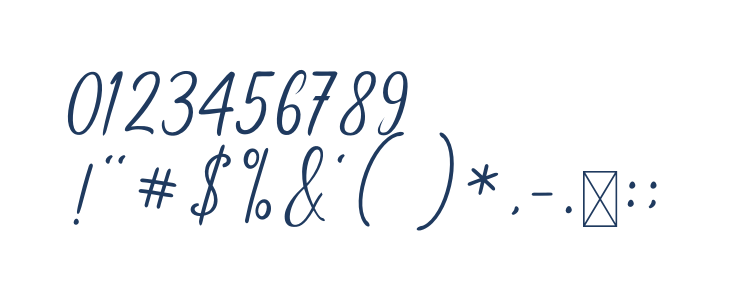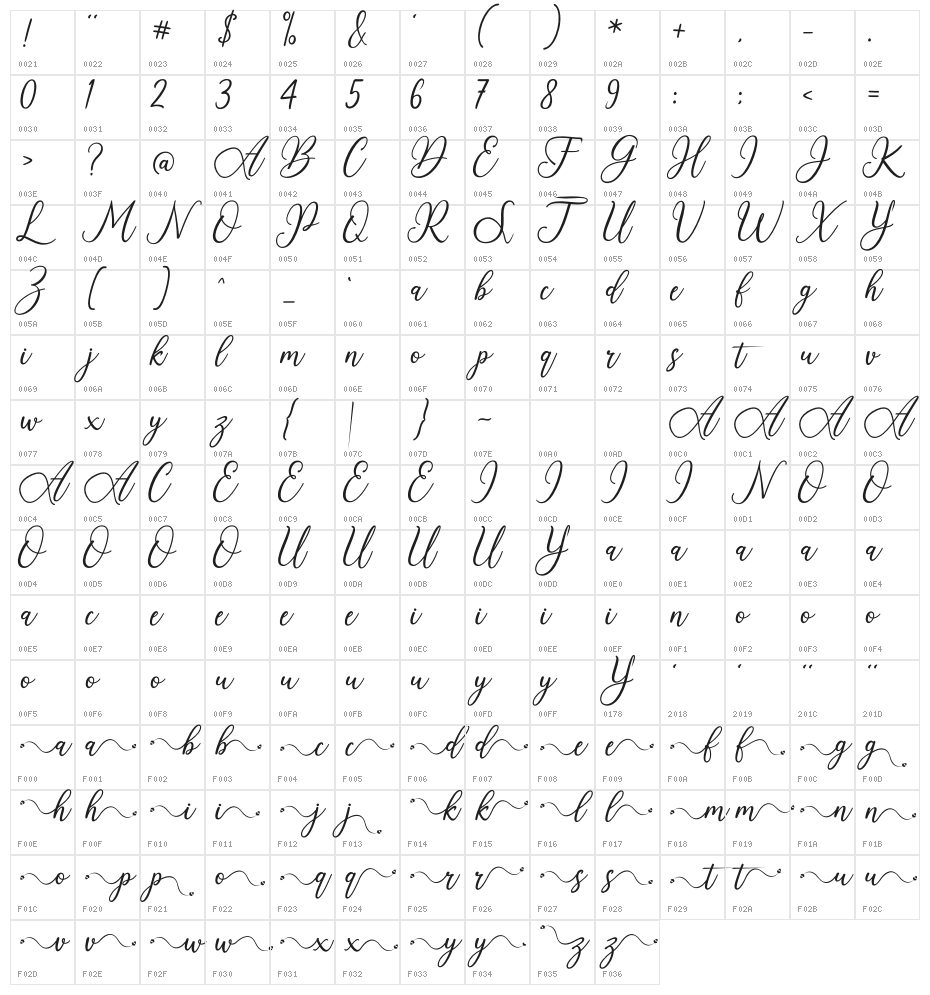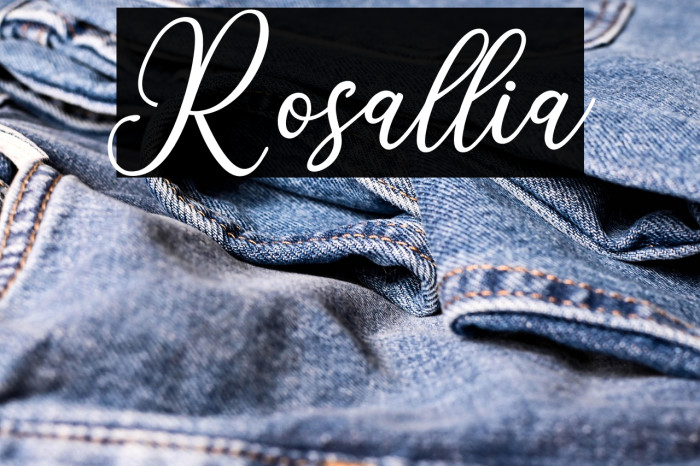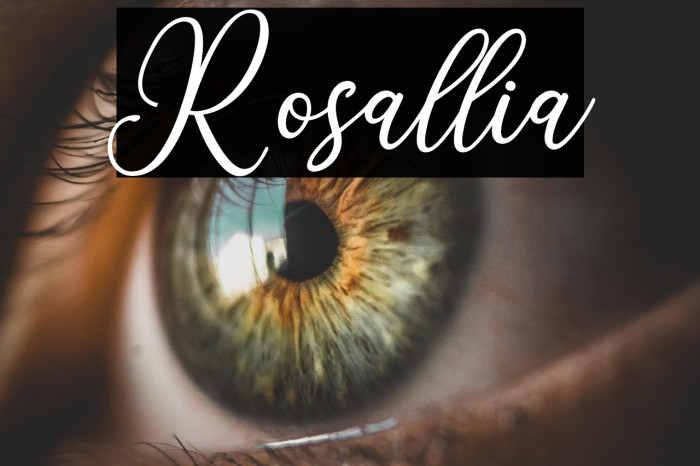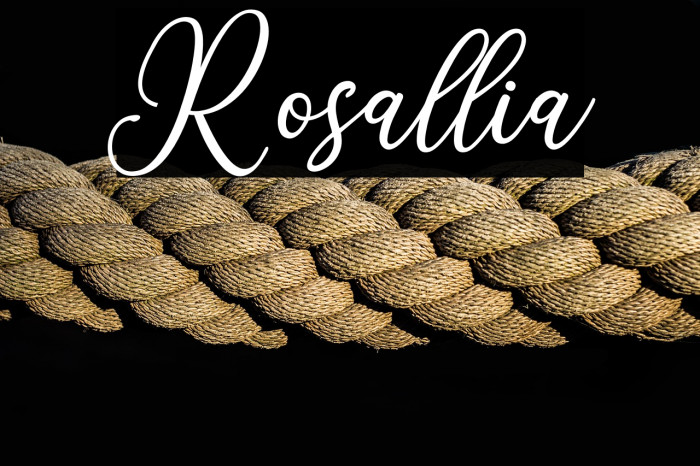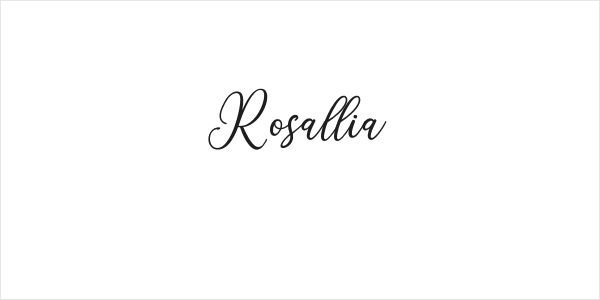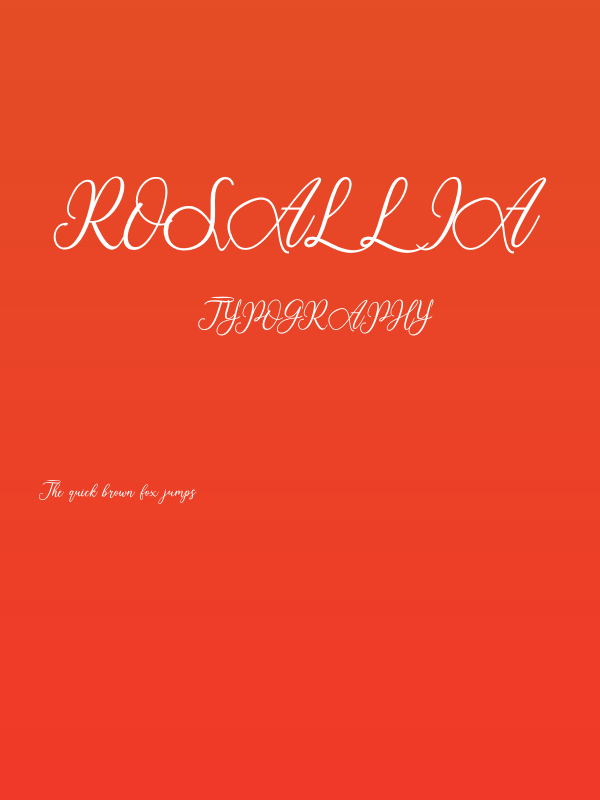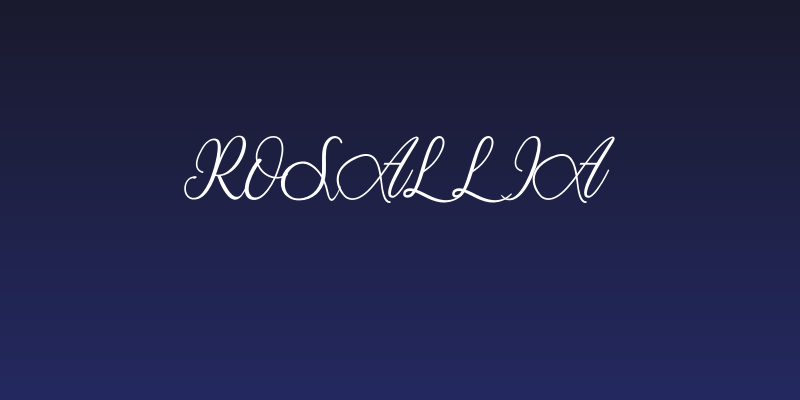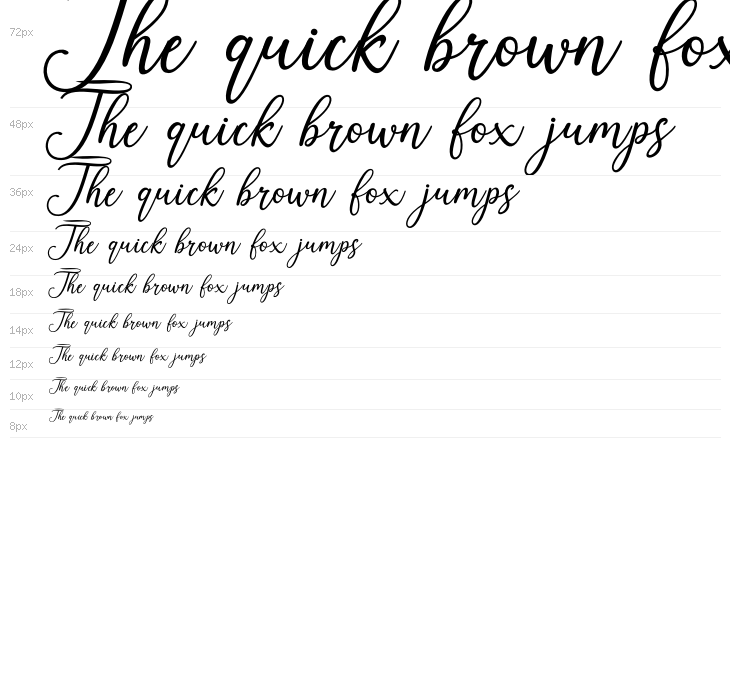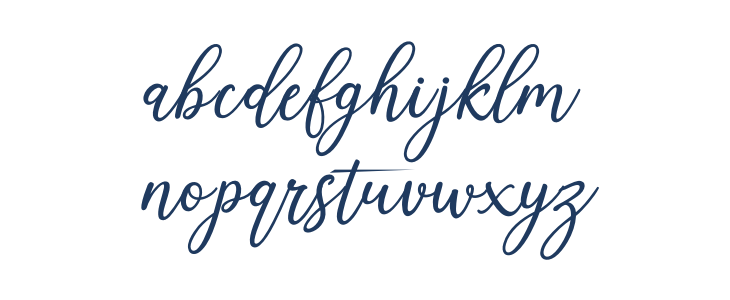
Rosallia Font
Rosallia Description
This elegant script font features flowing, interconnected letters that exude a sense of sophistication and grace. The uppercase letters are particularly ornate, with sweeping curves and flourishes that enhance their visual appeal. The lowercase letters maintain a consistent style, offering a harmonious blend of loops and smooth lines. The numerals are clear and legible, maintaining the font's overall aesthetic. Special characters are thoughtfully designed to match the script's fluidity. This font is perfect for projects that require a touch of elegance and refinement.